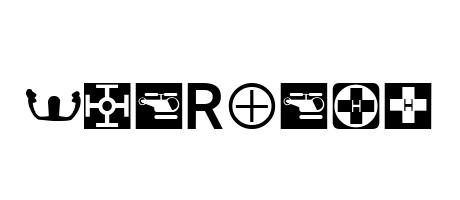
Aviation
By Ric Stephens
Aviation: A bold, graphic font built from a series of impactful symbols. It's a high-contrast, almost stencil-like design, using simple shapes and silhouettes to convey a sense of urgency and strength. The use of icons adds a unique and memorable quality, hinting at themes of flight, action, and possibly even military or medical contexts.